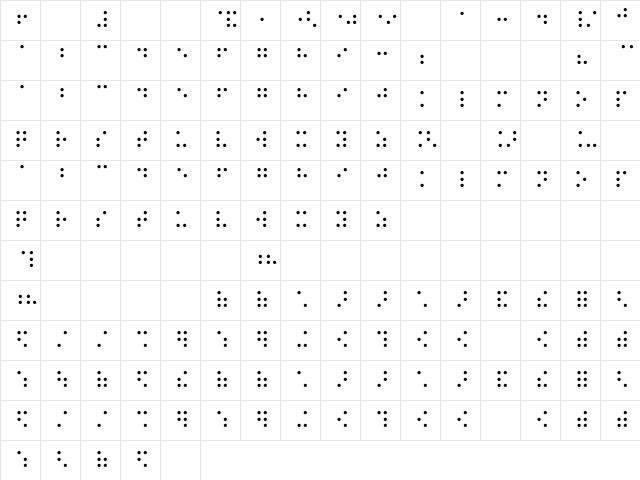
Night Braille
| Style | Braille |
| Designer | Bonez Designz |
Design Context for Night Typeface
Night is a composed and adaptable typeface that performs quietly and consistently across a wide range of design contexts.